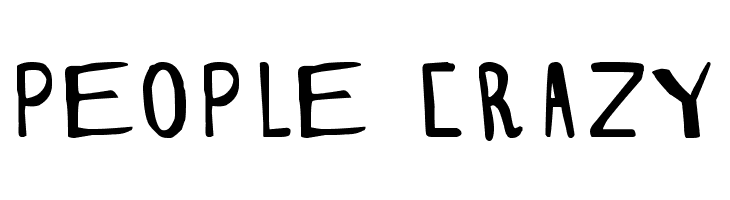
Philomne & Ephrem Font
- Font: Philomne & Ephrem
( Fonts by Rodrigo German - RASDESIGN )
A playful, hand-drawn font with a whimsical and informal style.